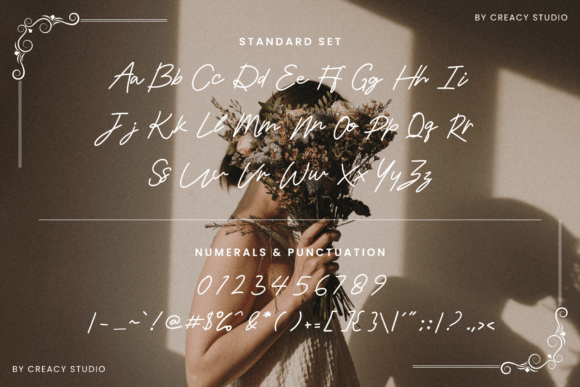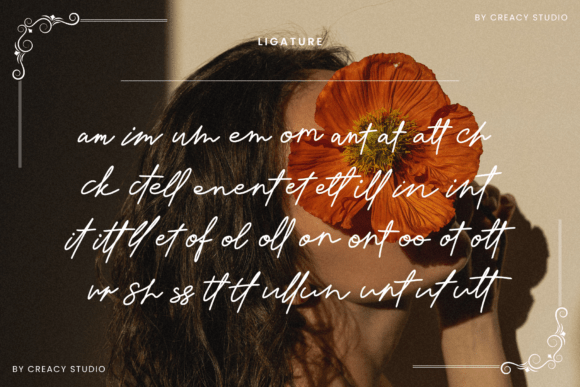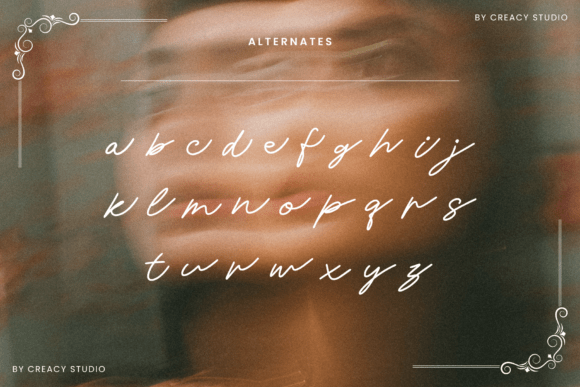
Couture Script Font
✨ Introduction: Couture Script – Where Elegance Meets Timeless Beauty ✨ Unleash sophistication with Couture Script, a font that embodies grace, style, and effortless luxury. Designed to capture the essence of high fashion and refined elegance, this handwritten script flows seamlessly, making every stroke feel personal and distinctive.💎 Chic & Sophisticated – Exudes class and refinement, perfect for branding, invitations, and high-end designs.🎨 Graceful & Expressive – Delicate curves and flowing strokes create an artistic yet polished look, ideal for fashion labels, luxury packaging, and editorial spreads.✨ Versatile & Timeless – Couture Script adapts beautifully to any aesthetic, whether for modern minimalism or vintage glamour.Add a touch of elegance and exclusivity to your designs with Couture Script—the perfect blend of artistry and prestige. Are you ready to elevate your brand’s visual presence?